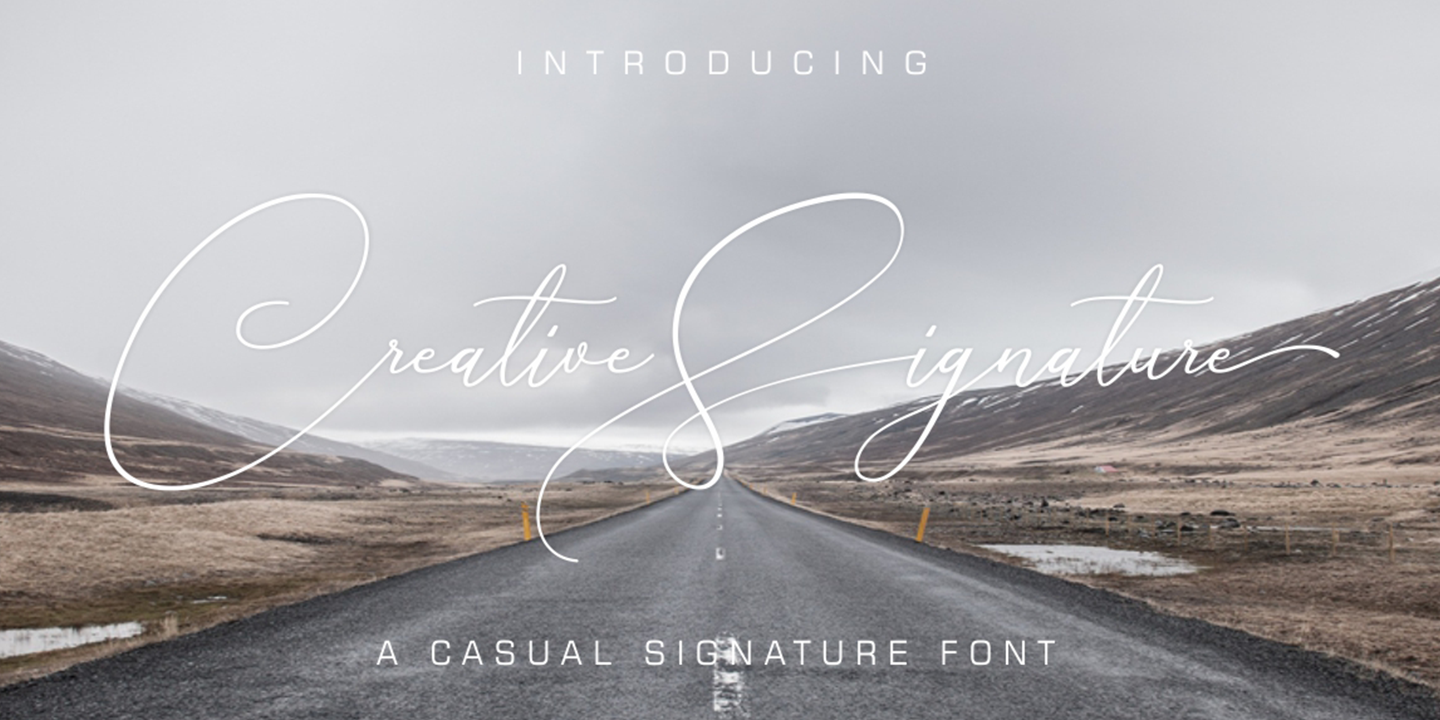
The Creative Signature Font is an expressive and personalized typeface, designed to replicate the unique charm of a genuine handwritten signature. Its fluid strokes and distinctive character make it an excellent choice for personal branding, boutique logos, author signatures on book covers, fashion labels, photography watermarks, and stylish social media profiles. Whether you're designing a custom brand identity or adding an authentic touch to your digital content, this font will imbue your project with a sense of individuality and artistic flair.
What makes the Creative Signature Font so exciting is its ability to convey a sense of authenticity and a human touch in a digital format. It often features natural variations in line weight, charming ligatures, and stylistic alternates that mimic the nuances of real handwriting. This font is perfect for designers who want to create a bespoke and intimate feel, adding a layer of personality that traditional fonts can't achieve. It stands out by offering a unique and memorable aesthetic, making any text it graces feel genuinely handcrafted and exclusive. The inherent elegance and personal warmth of the Creative Signature Font make it a standout choice for projects that aim for a personal connection.
The Creative Signature Font typically offers a versatile range of features to support diverse design needs. While specific offerings may vary depending on the font package, you can generally expect to find a Regular weight, often with a subtle variation in boldness to enhance its handwritten feel. Many versions of the Creative Signature Font Free Download are rich in OpenType features, including numerous stylistic alternates, extensive ligatures (connecting letter pairs for a more natural flow), and various swashes that allow designers to customize the appearance of the signature. Some premium packages might also include initial and terminal forms for letters, offering even greater creative control over the start and end of words, ensuring a truly unique and personalized signature look throughout your project.